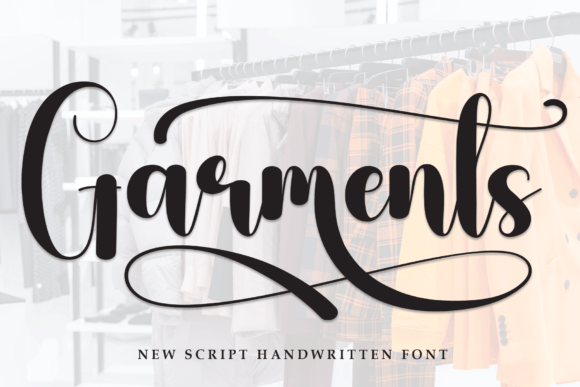
Discover the Perfect Handwritten Touch with Garments Font
Have you ever been brainstorming a creative project, only to find yourself stuck on the perfect font? You envision a charming, handwritten style that captures the essence of your design, but nothing seems quite right. This is where Garments Font comes in – a sweet and friendly handwritten font that’s sure to bring a smile to your face.
Garments Font is the perfect addition to any design that needs a lovely touch. Whether you’re crafting wedding invitations, cards, or any other creative project, this font is sure to add a personal and whimsical feel. Its versatility and charm make it an invaluable asset for designers looking to add a unique touch to their work.
Key Features of Garments Font
- Font Family: Garments Font is a high-quality font family consisting of 8 fonts, including 4 script fonts and 4 serif fonts.
- Character Count: The font family includes over 700 characters, including uppercase and lowercase letters, numbers, punctuation, and special characters.
- Unique Characteristics: Garments Font features a unique, hand-drawn style with intricate details and subtle texture, giving it a distinctive and elegant look.
Garments Font Review
Overall, I found Garments Font to be a solid choice for fashion-related projects. ✨ Its unique blend of modern and vintage elements makes it suitable for a wide range of designs. The font’s high level of customization options allows users to tailor the look to their specific needs.
The font’s flexibility is one of its strongest assets, with a range of weights and styles available. This makes it easy to create visually appealing headings, titles, and body text. Additionally, the font’s sleek and minimalist aesthetic makes it easy to pair with other design elements.
- ✨ Customization options: Garments Font offers a high level of customization, allowing users to fine-tune the look to their specific needs.
- ✨ Flexibility: The font’s range of weights and styles makes it suitable for a wide range of design applications.
- ✨ Sleek aesthetic: The font’s minimalist design makes it easy to pair with other design elements.
- ⚠️ Limited language support: Garments Font may not support as many languages as some other fonts, which could be a limitation for multilingual projects.
- ⚠️ Limited bold and italic options: While the font offers a range of weights and styles, the bold and italic options may be limited, which could make it difficult to create certain design elements.
Overall, I would recommend Garments Font for fashion-related projects where a unique and modern aesthetic is desired. While it may have some limitations, the font’s flexibility and customization options make it a solid choice for designers.
Garments Font is ideal for:
- Fashion and apparel branding
- Textile and fabric design
- Graphic design for clothing labels and tags